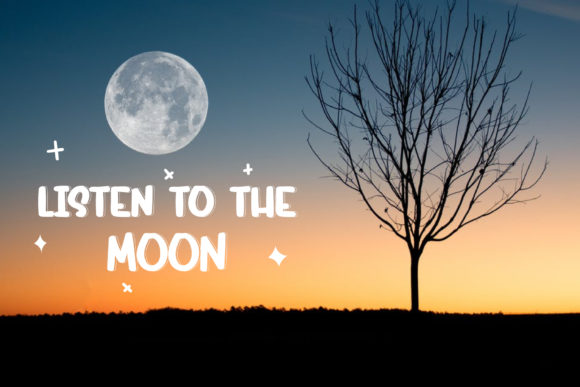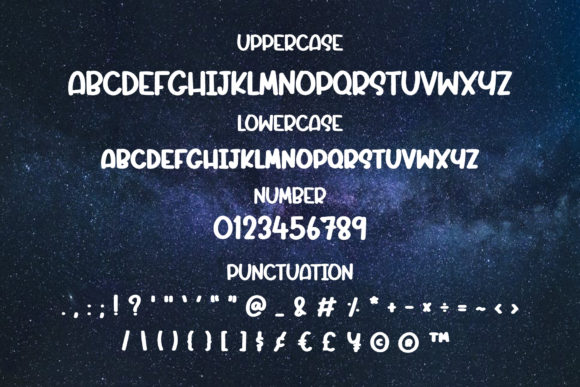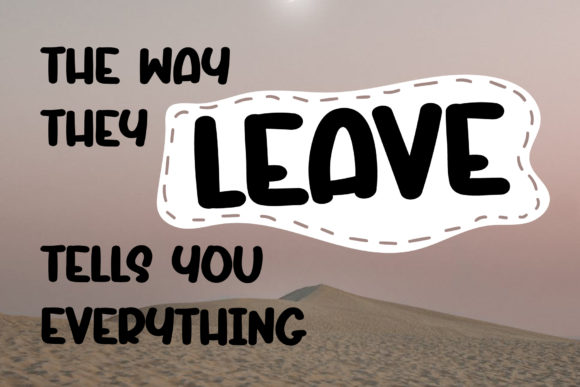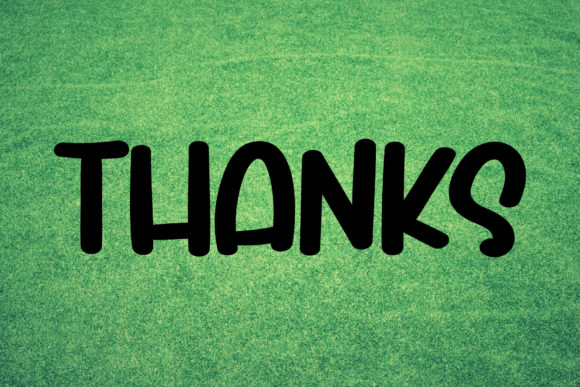
Introduction to Script Theory Font Font
Fonts play a crucial role in design, and the Script Theory Font font is a typeface that brings both character and versatility to any project. Whether you’re working on a branding project, a website, or a print design, the Script Theory Font font offers a unique style that can elevate your work.
Script Theory is a bold and simple handwritten font.
This versatile script font has a wide range of applications ranging from greeting cards to kids’ crafts, and is guaranteed to add a sweet touch to your next design .
Key Features of Script Theory Font Font
Why Choose Script Theory Font Font?
The Script Theory Font font is more than just a typeface – it’s a design tool that helps you communicate your message with style and clarity. Its unique character set and versatile design make it suitable for a wide range of applications, from elegant invitations to bold headlines.
With its carefully crafted letterforms and balanced proportions, the Script Theory Font font ensures readability and visual appeal across all mediums.
What makes Script Theory Font font special?
The Script Theory Font font stands out with its unique design, exceptional readability, and versatility across various design applications.